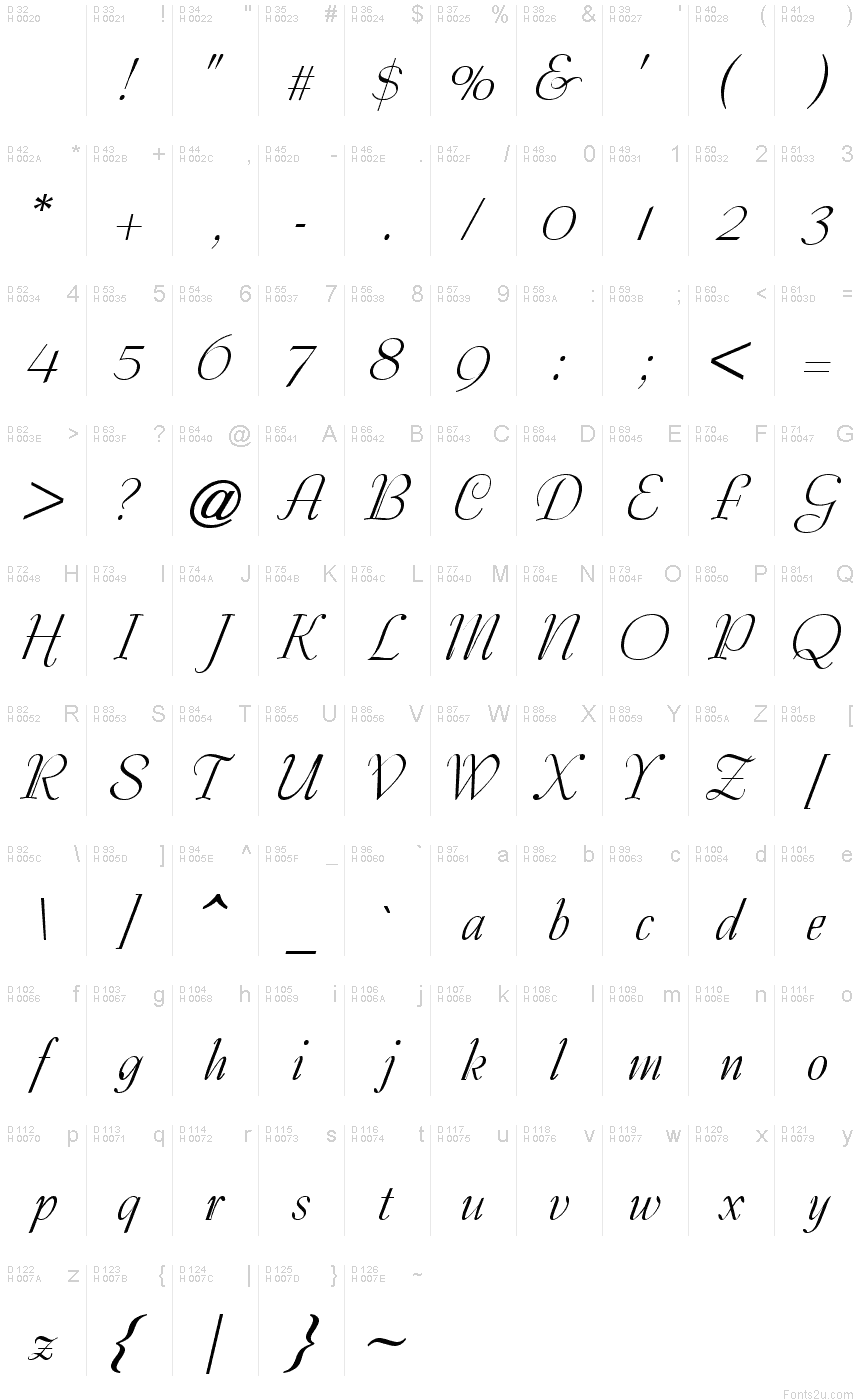
Safrole Oblique
Safrole Oblique is a free calligraphic script with steeply slanted letters and pronounced, carefully controlled thick-to-thin strokes. Long tapering sweeps give the writing an elegant fashion-conscious air, and broad generous curves keep its formal manner from feeling stiff.
It makes a graceful signature mark for beauty branding. Its strongest audience is designers creating wedding invitations, fashion packaging, and editorial covers for bridal or boutique clients who favor flowing, expressive lettering.